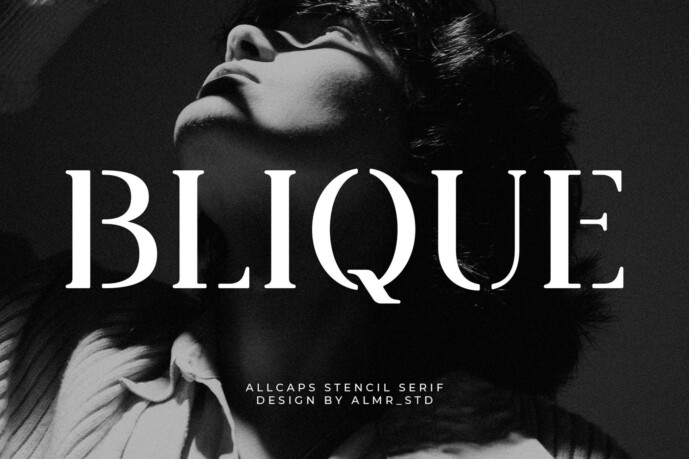
Blique Font
Designer: ALMR_STD
Introducing Blique – All caps stencil serif font. Blique is a stencil, minimalis & retro serif font, This type of font is very suitable for your various needs such as branding projects, logos, social media posts, advertisements, labels, product packaging, photography, wedding designs, watermarks, invitation product designs, stationery, and any project.